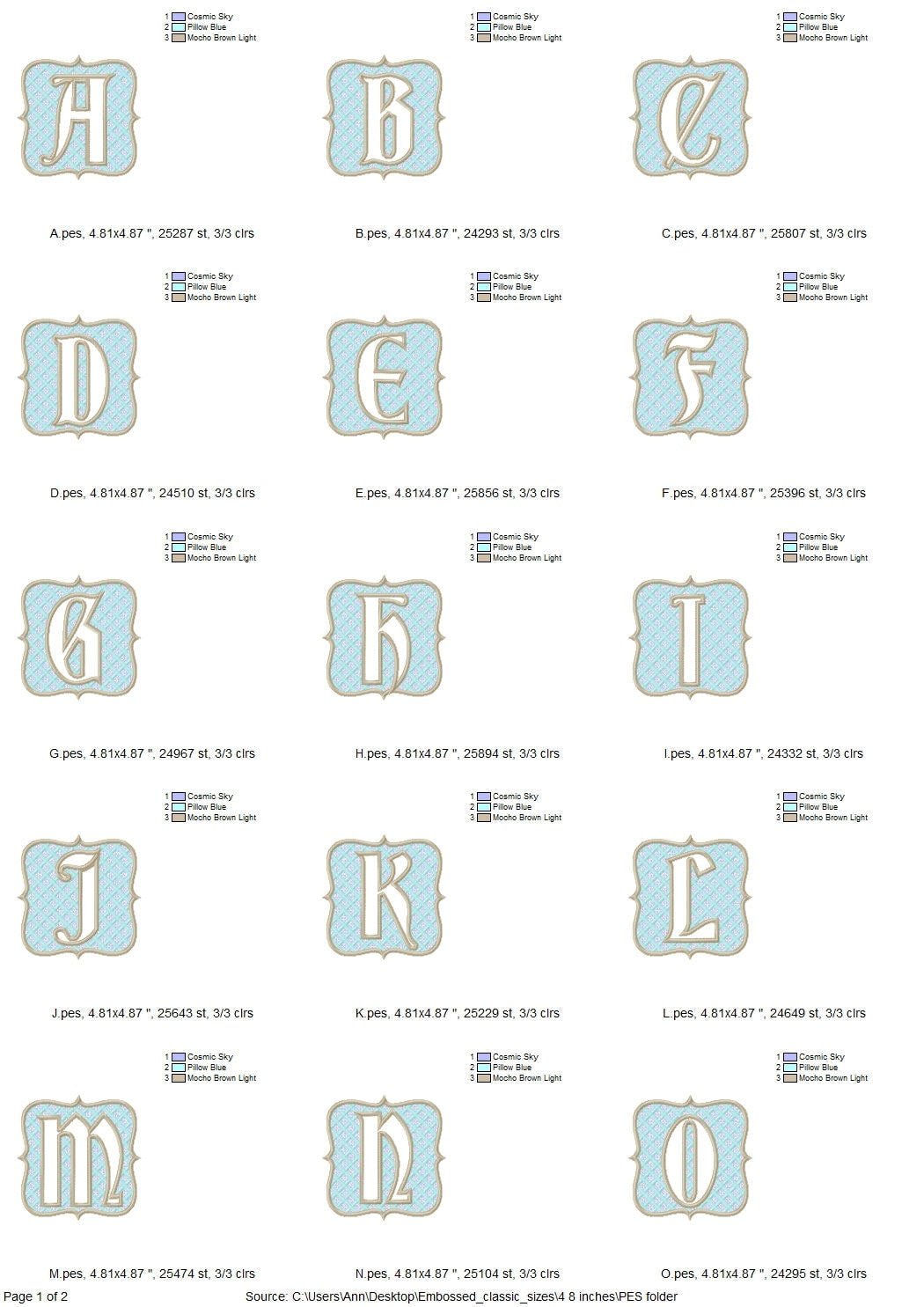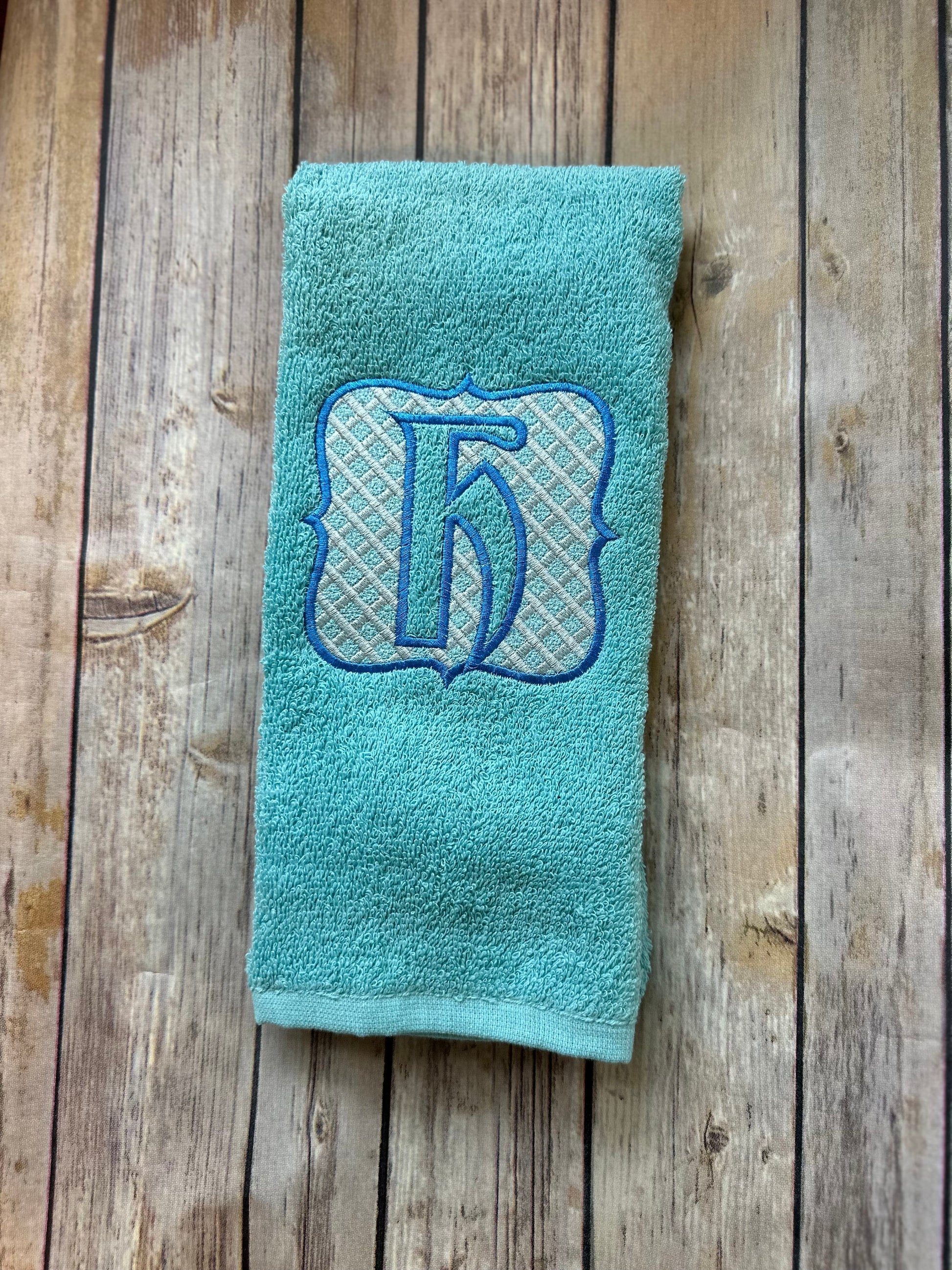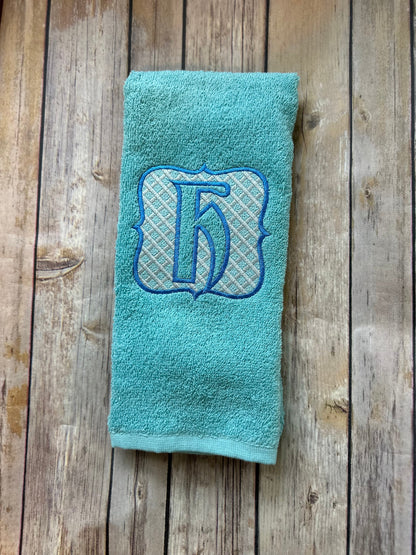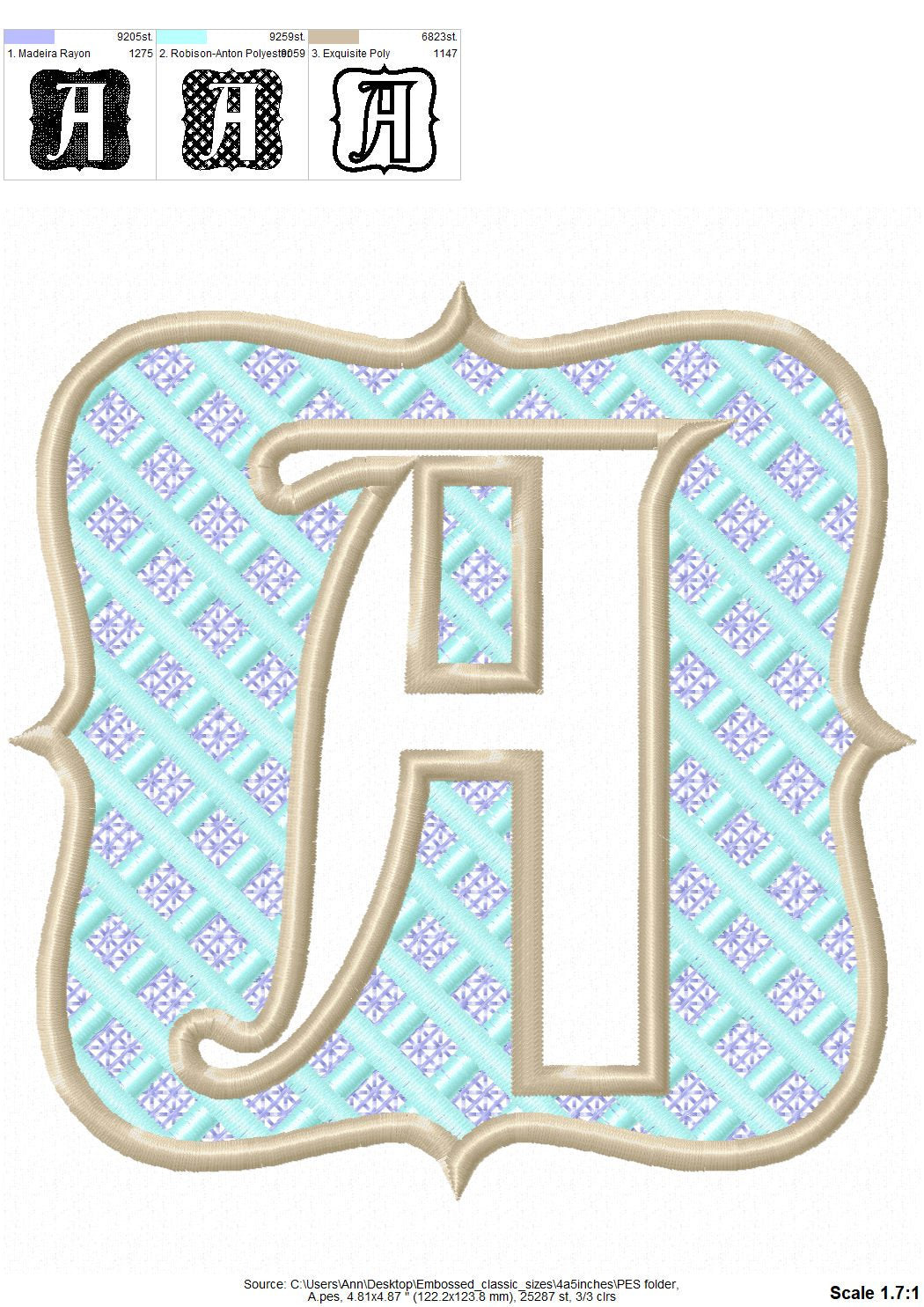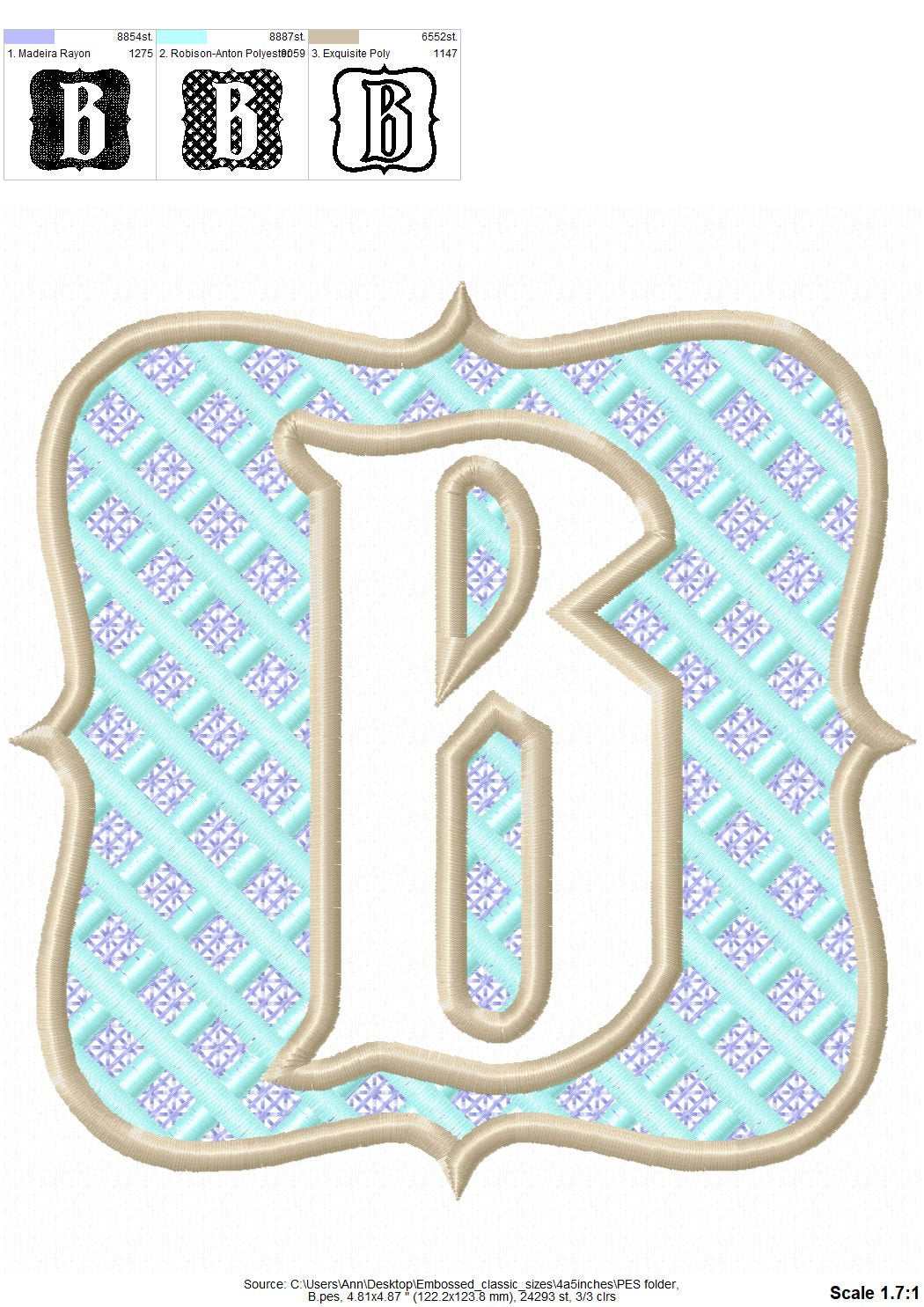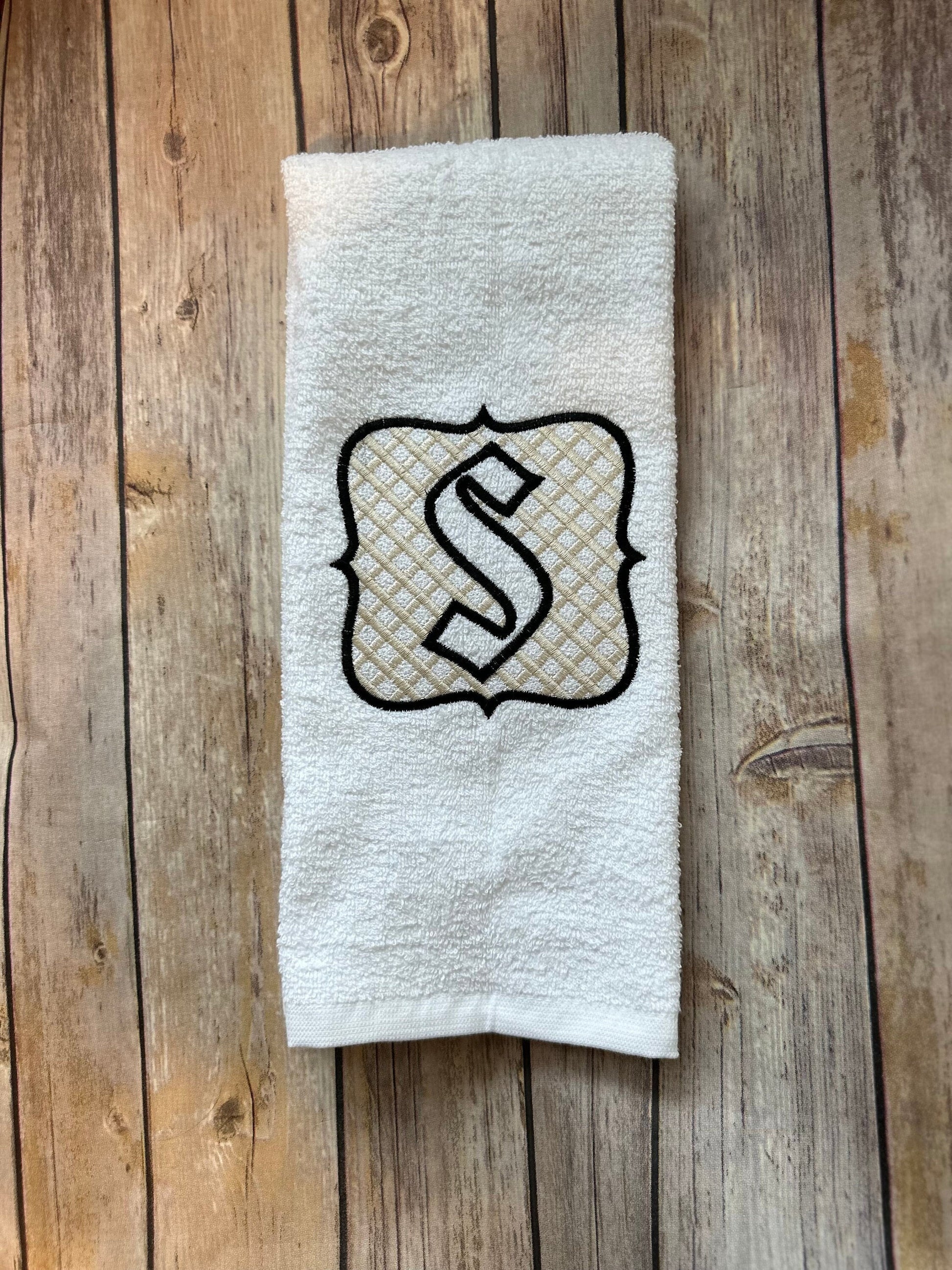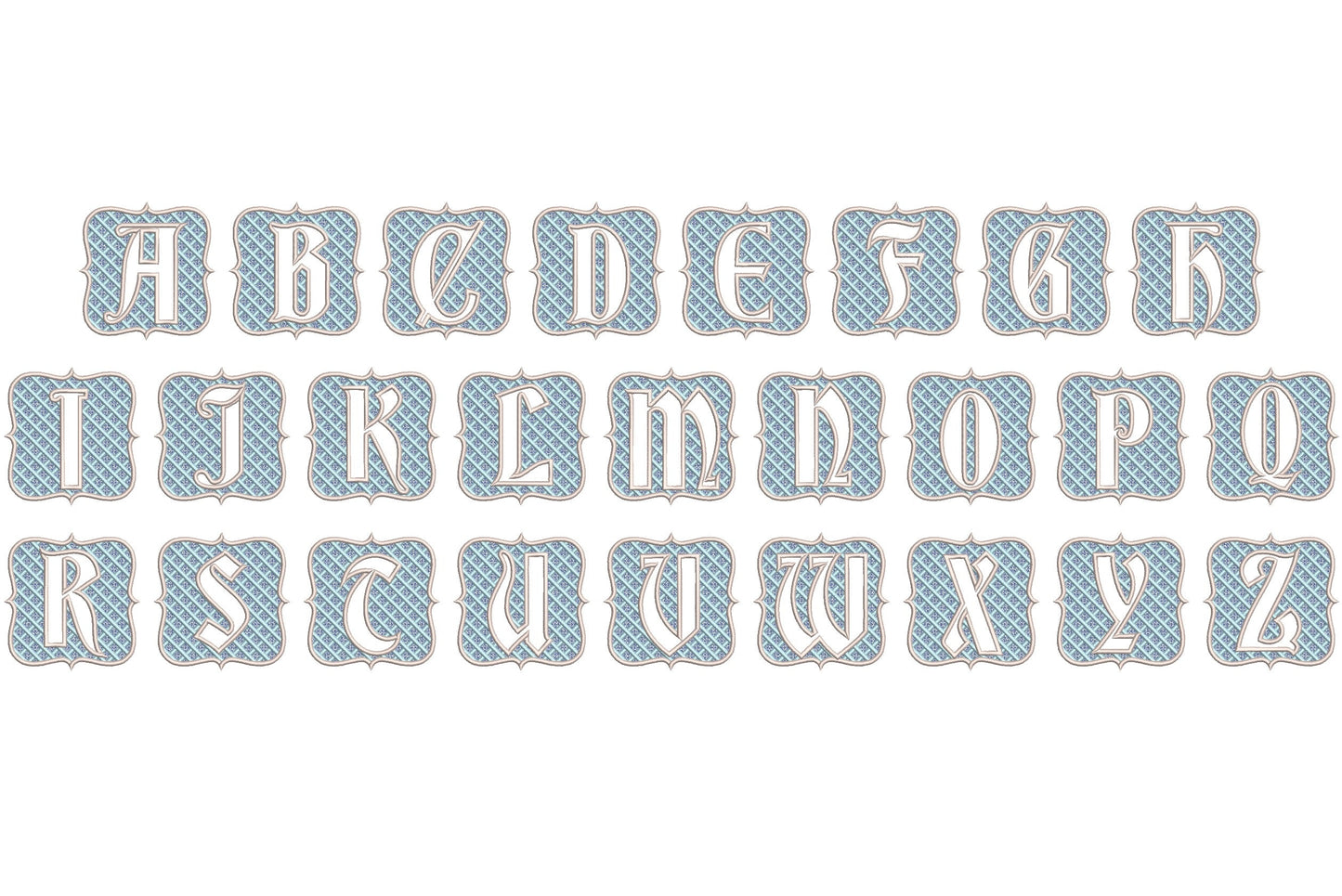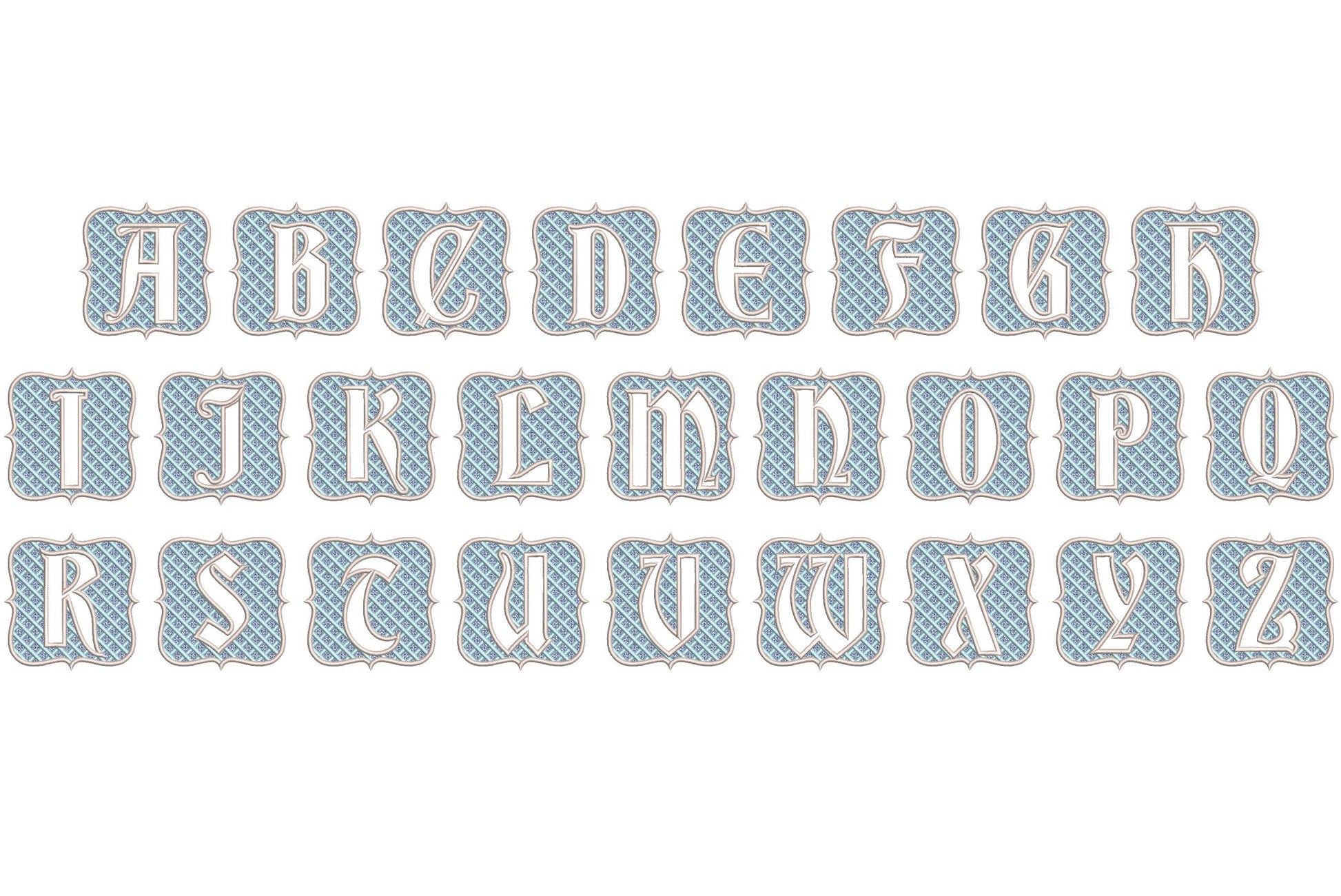
Or click to open the linkAn embossed initial inside a buffalo plaid gingham frame, made for terry towels. The embossing flattens the towel loops so the letter stands out clearly.
All 26 letters, A to Z, in two sizes: 4 and 4.8 inches. A lovely wedding or birthday gift for bath and kitchen towels.
Simply hoop your fabric with stabilizer and stitch the design directly onto it.